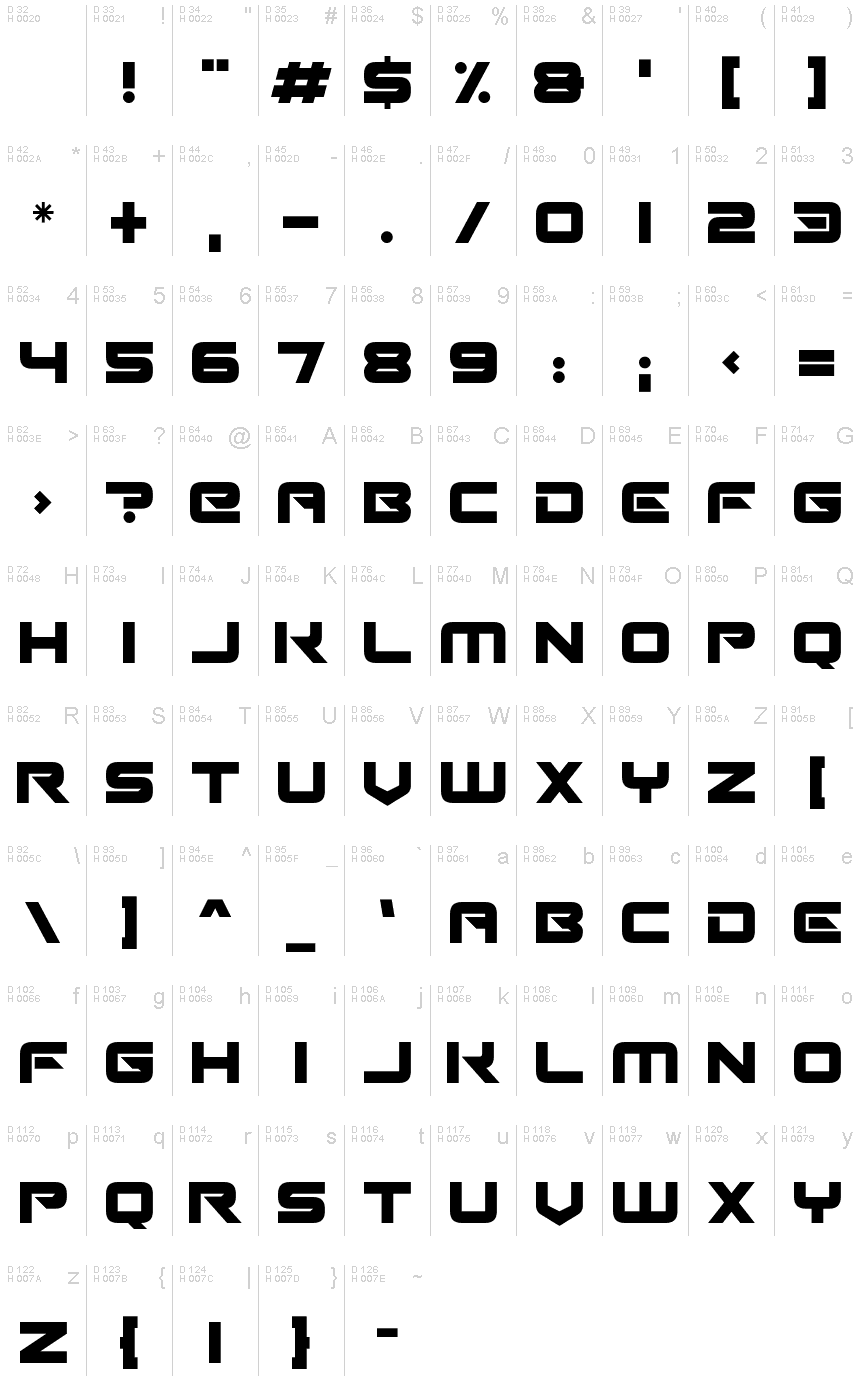
Robo Girls
Introducing Robo Girls, the bold and futuristic display font designed by Darrell Flood. Its extra-wide style makes it perfect for creating attention-grabbing headlines, logos, and posters. The unique letterforms of Robo Girls exude a sense of modernity that is perfect for projects in the gaming, technology, or fashion industries. Use this font to add a touch of edginess to your designs and make them stand out from the crowd. Whether you're designing a new brand identity or creating eye-catching graphics for social media, Robo Girls has got you covered!